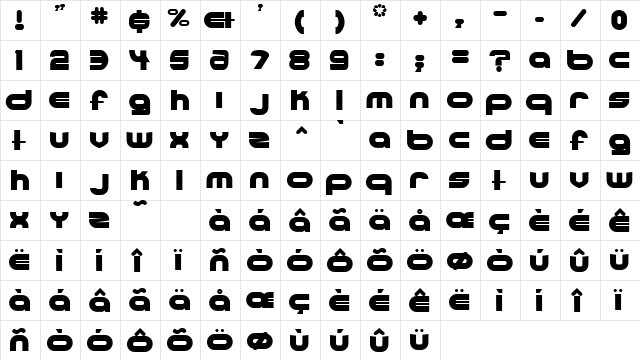
Ultraworld Regular Font Preview
Ultraworld Regular
Design Context for Ultraworld Typeface
Ultraworld offers clean, dependable letterforms without strong stylistic allegiance, making it a practical choice for designers who need flexibility.
Pro Tip: Pair Ultraworld with a font of contrasting weight or personality to build a more expressive typographic hierarchy.